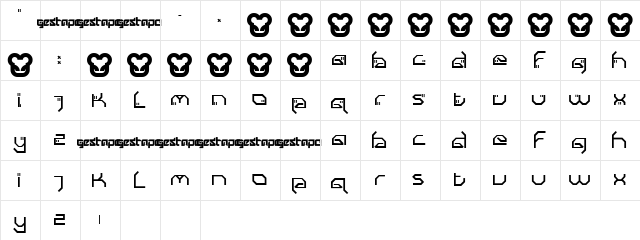
gestapo001 Regular
Design Context for gestapo001 Typeface
gestapo001 is a composed and adaptable typeface that performs quietly and consistently across a wide range of design contexts.